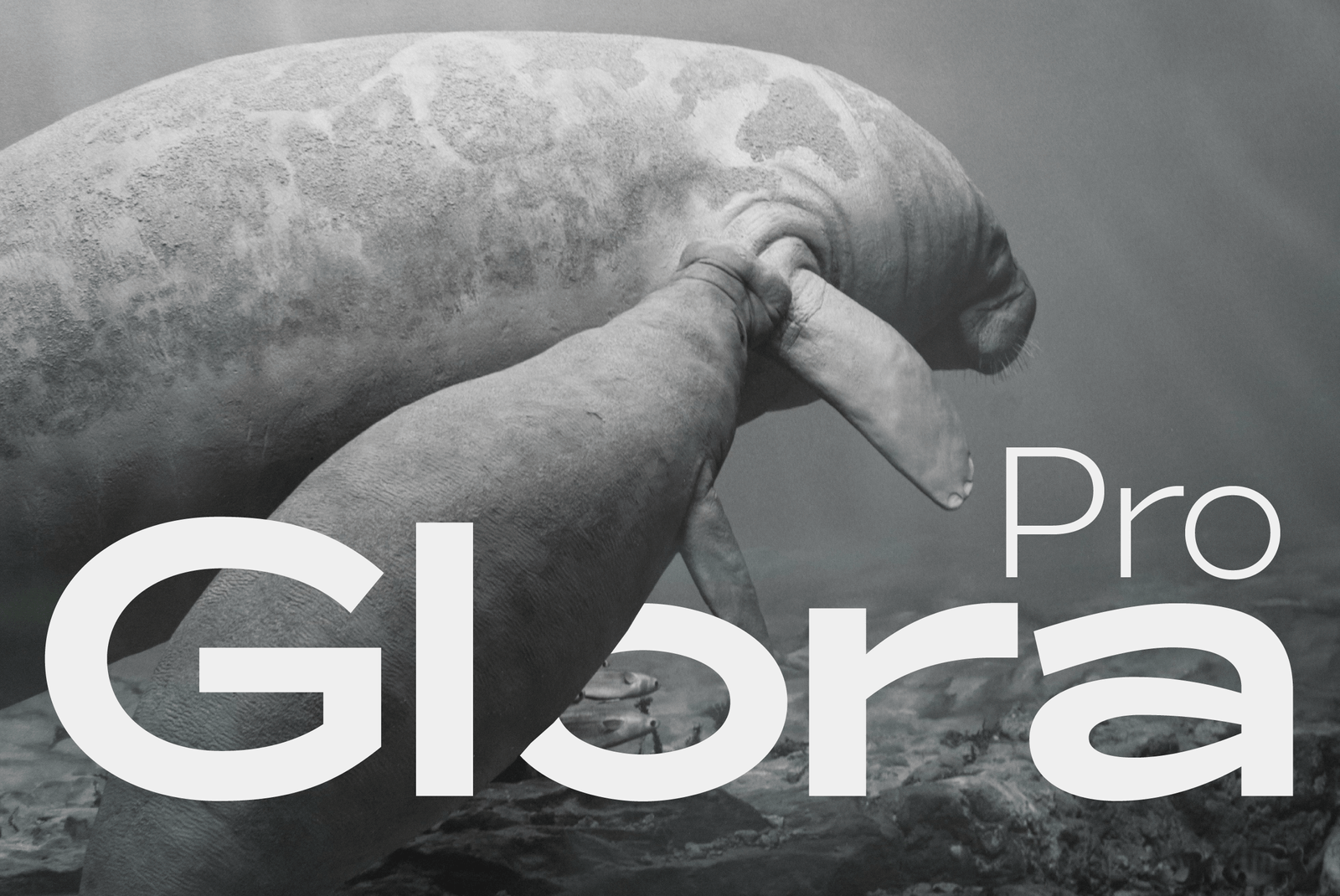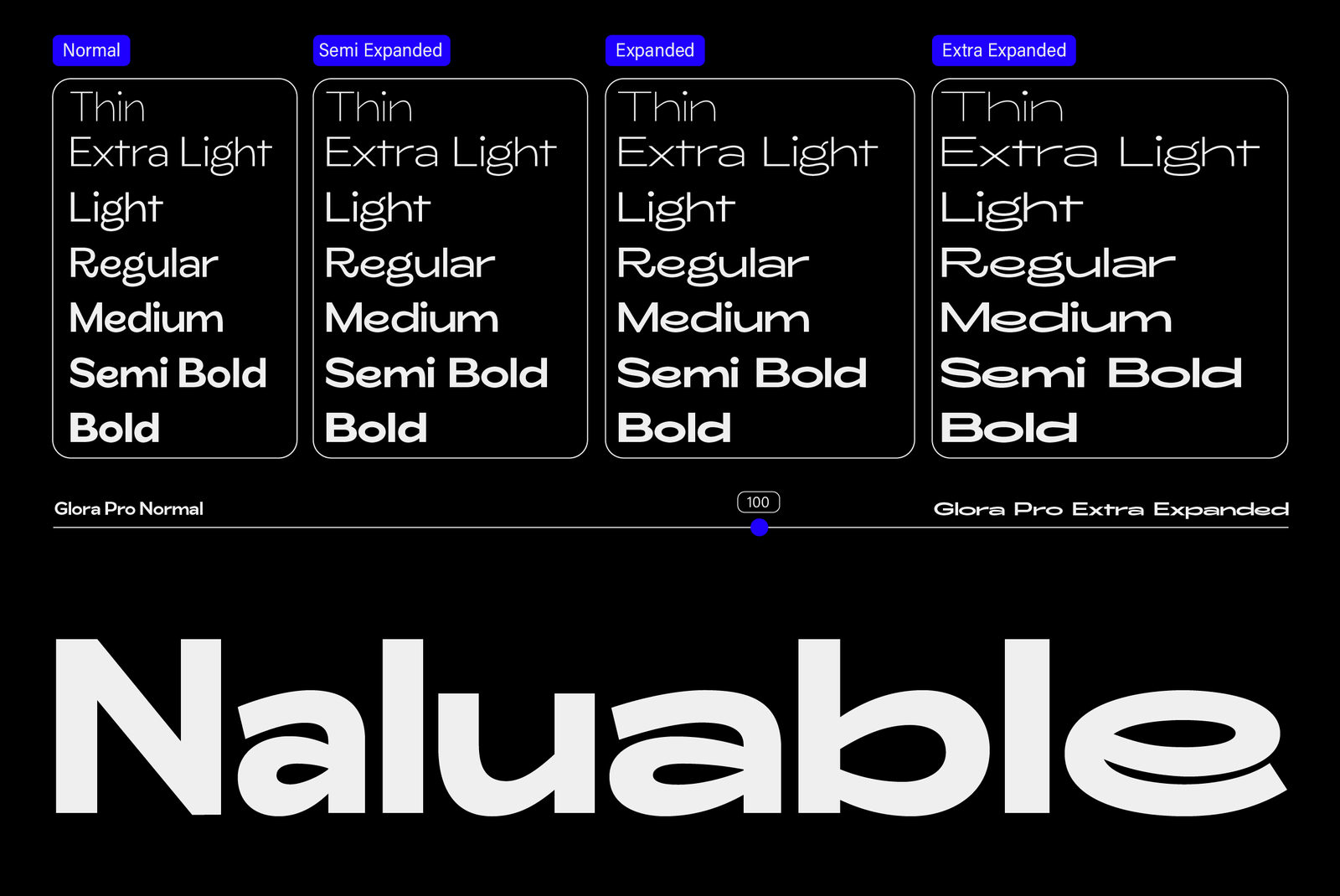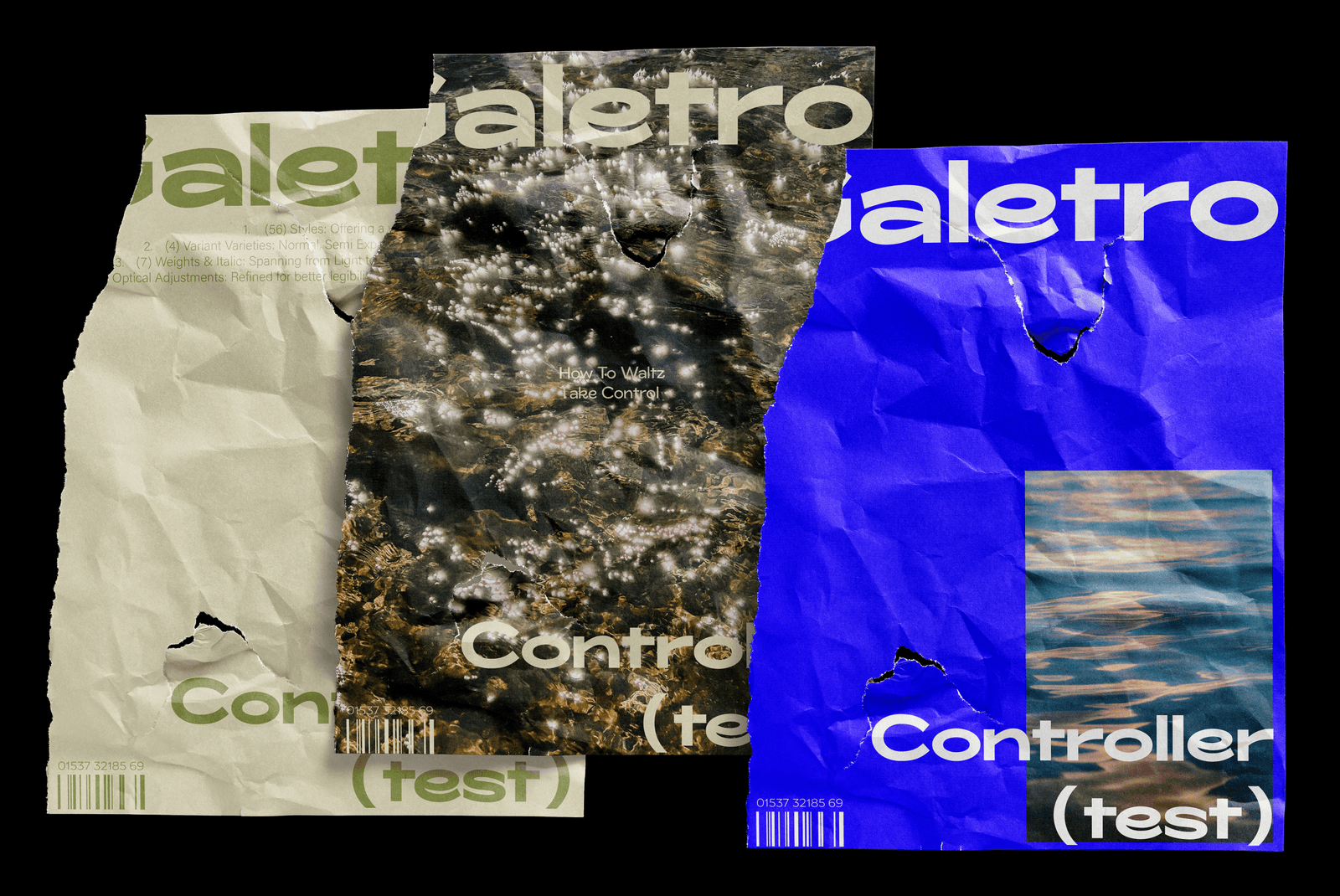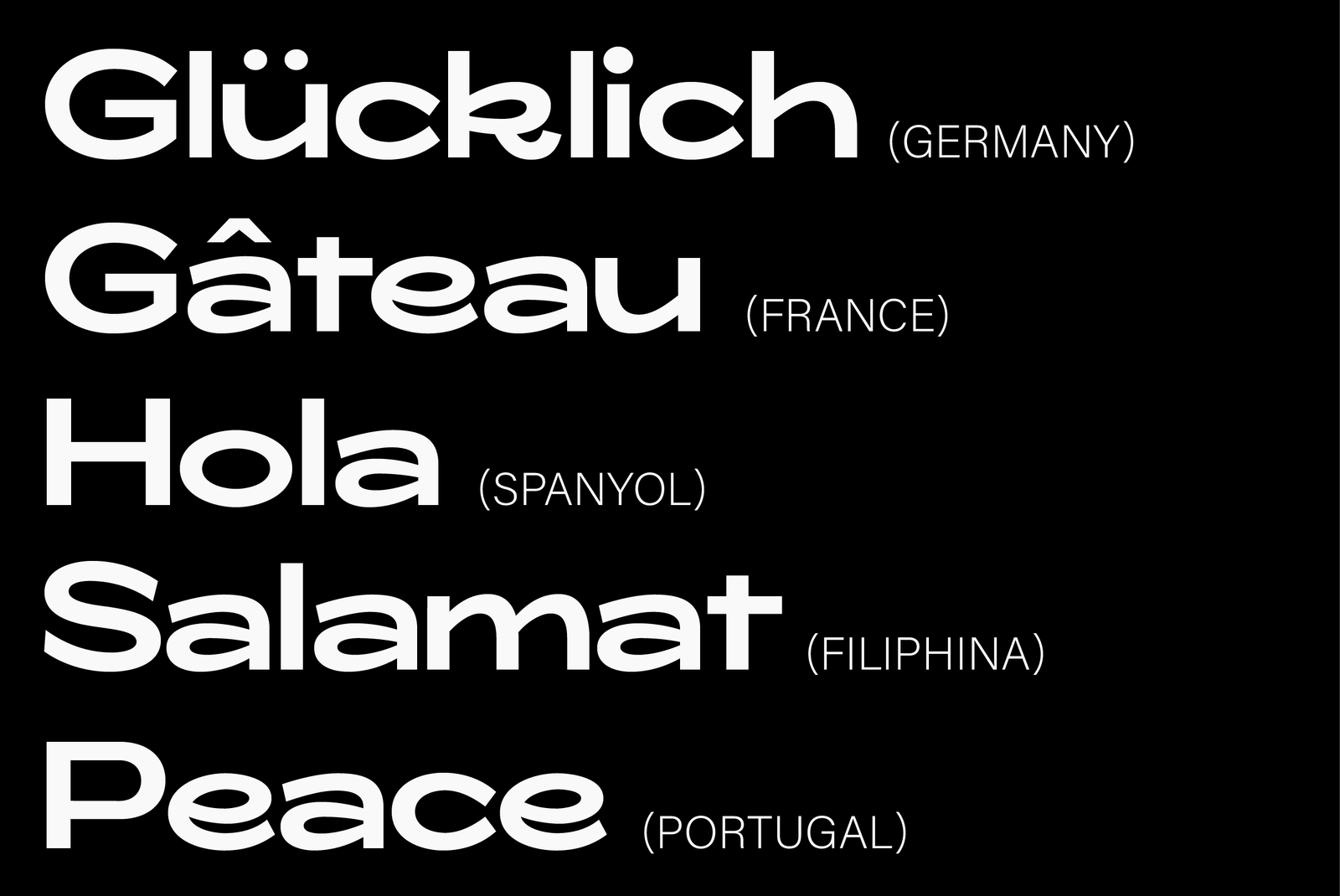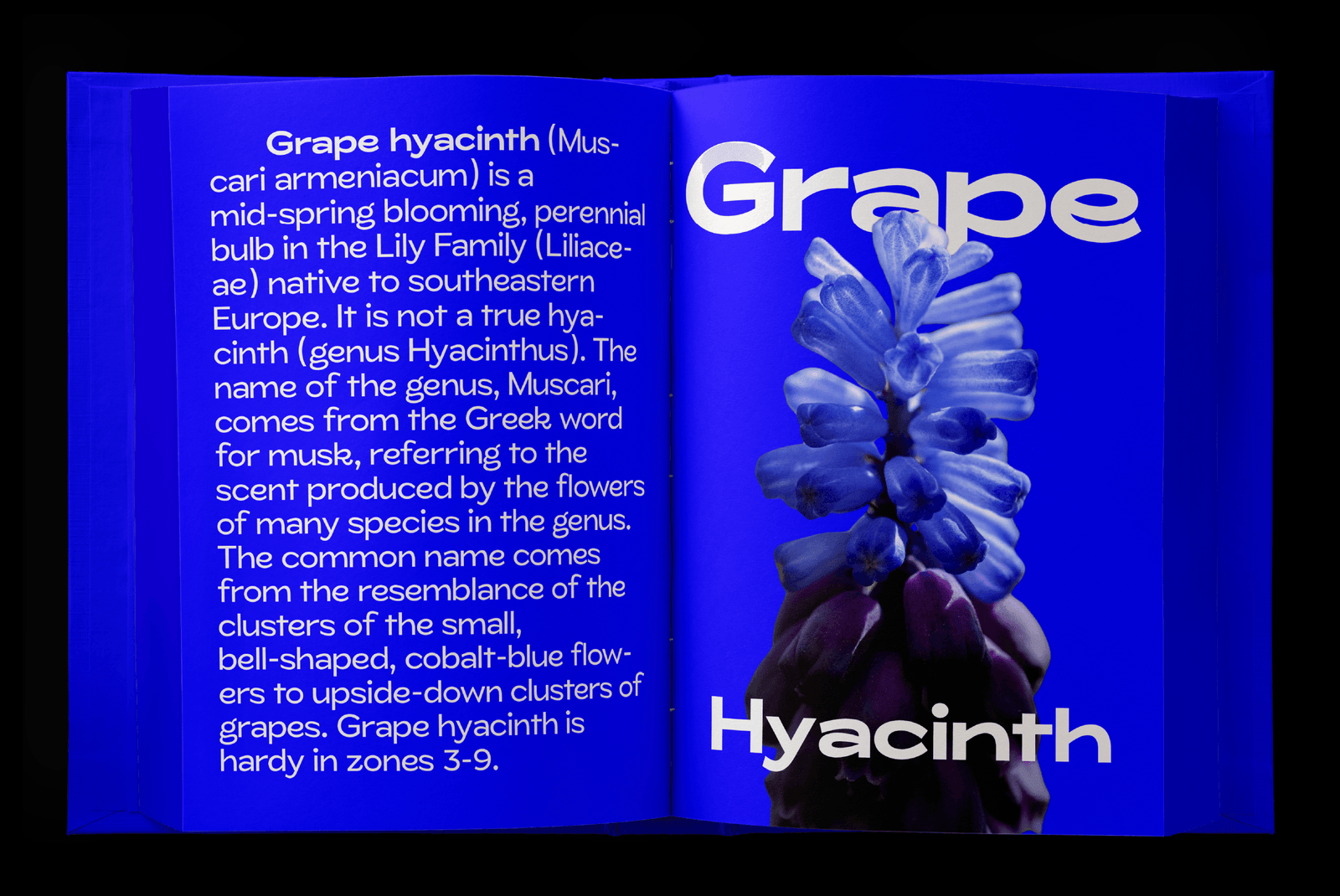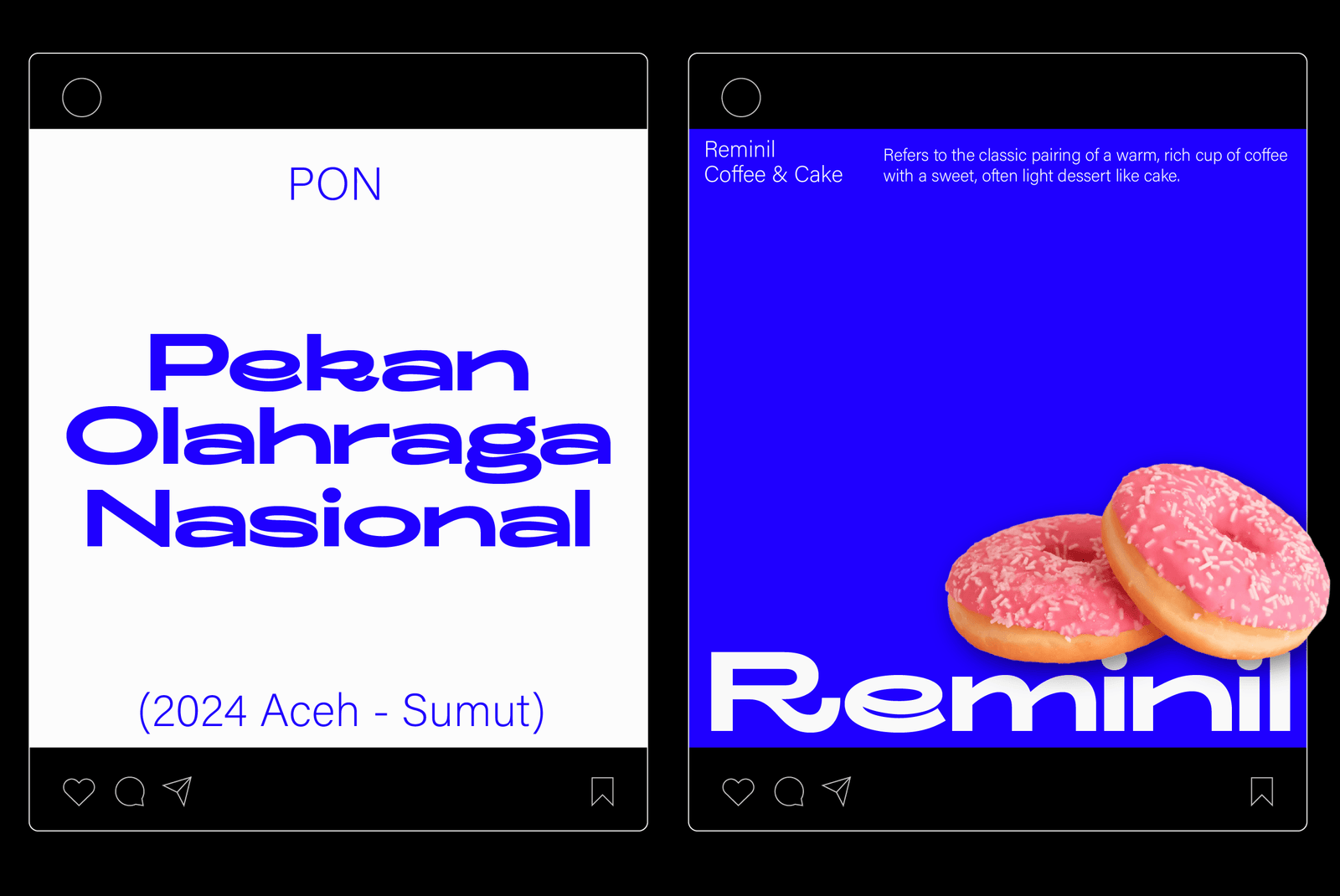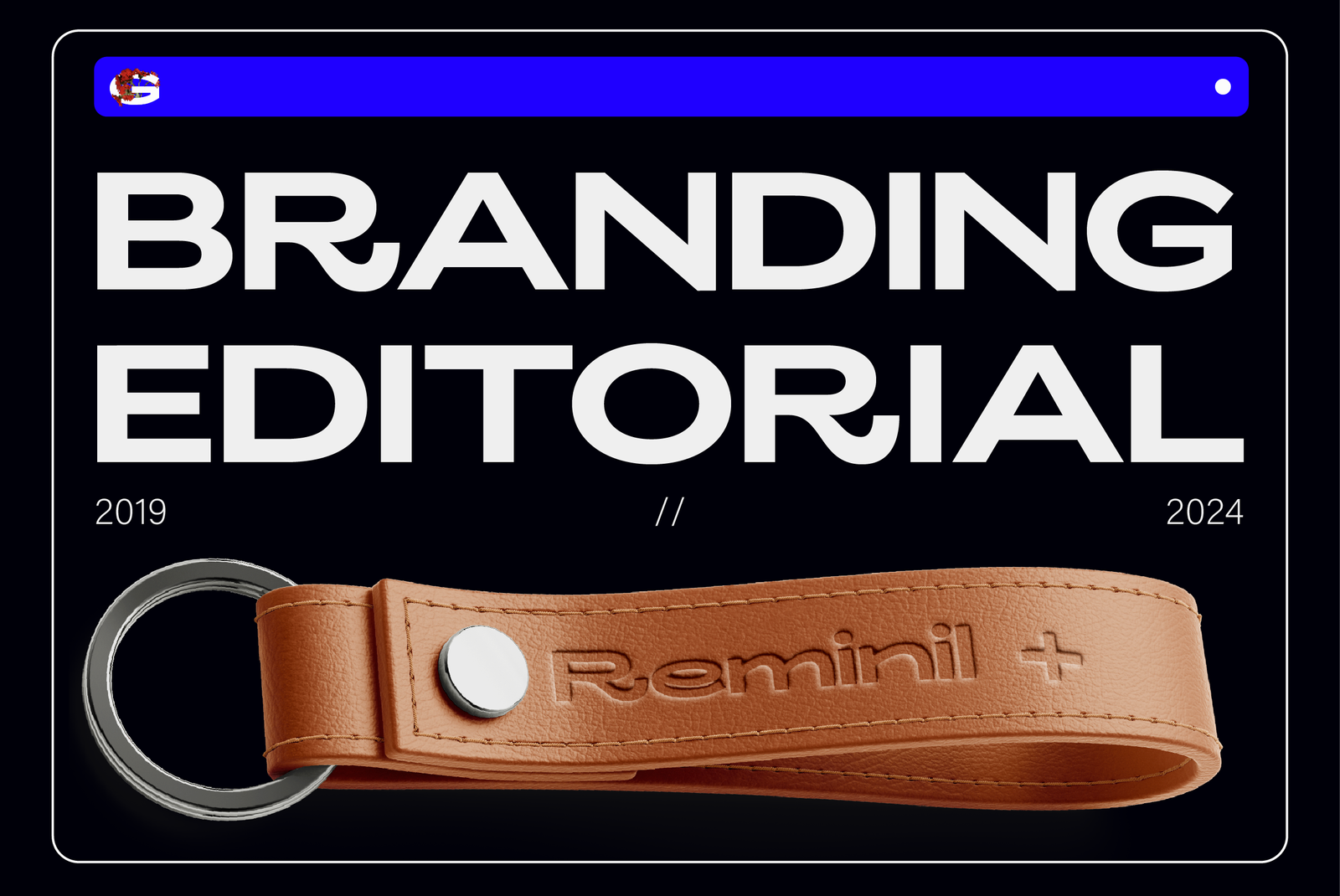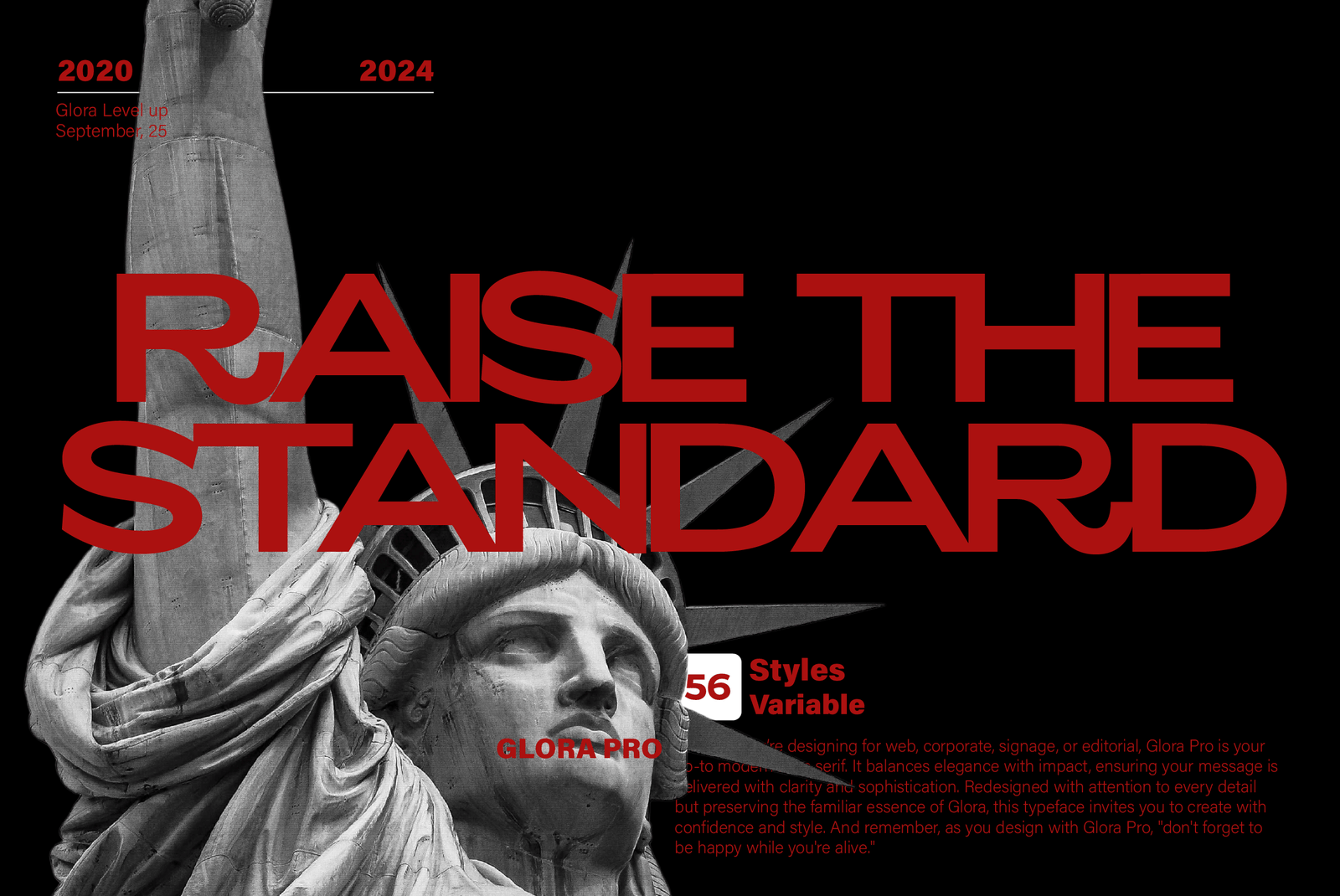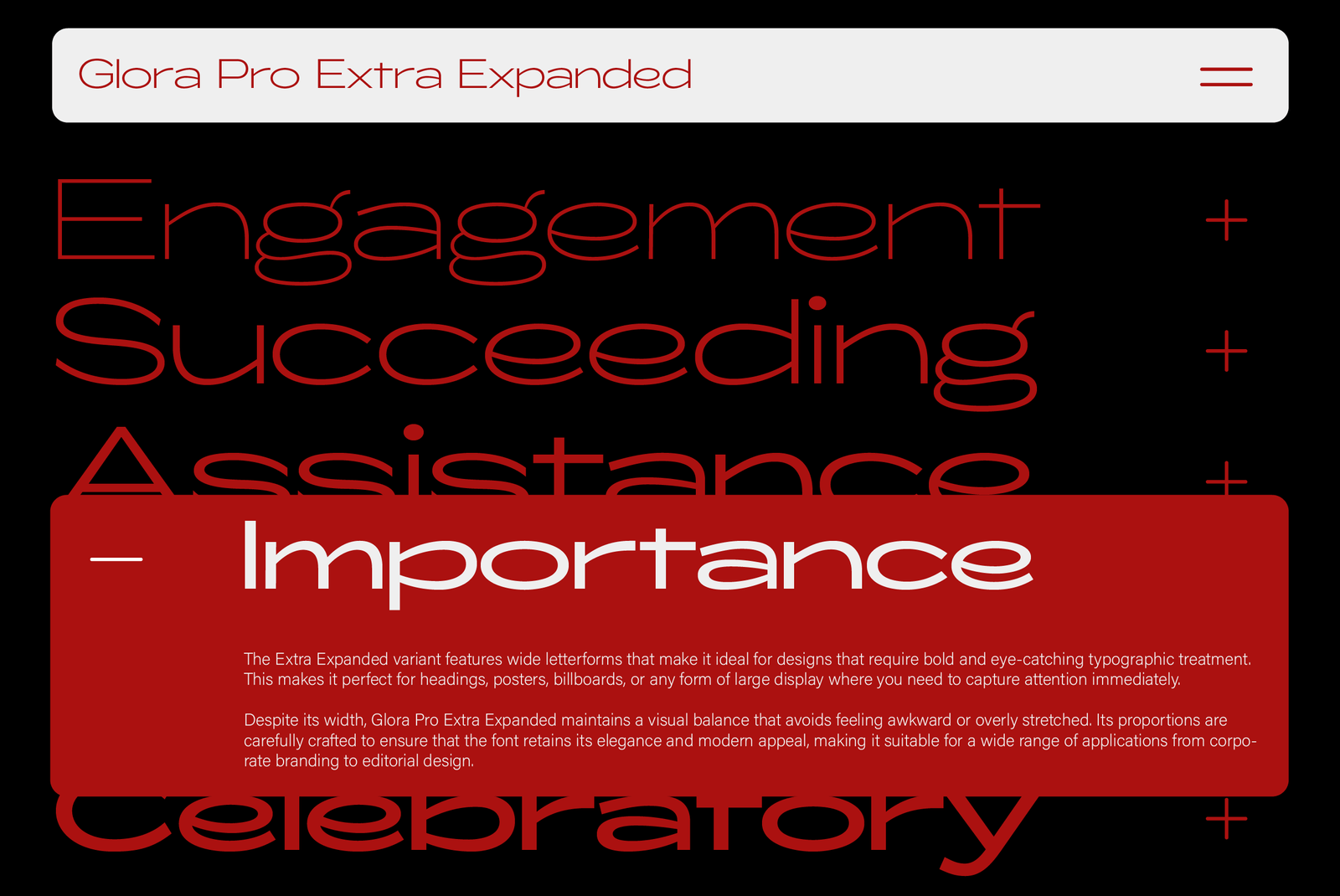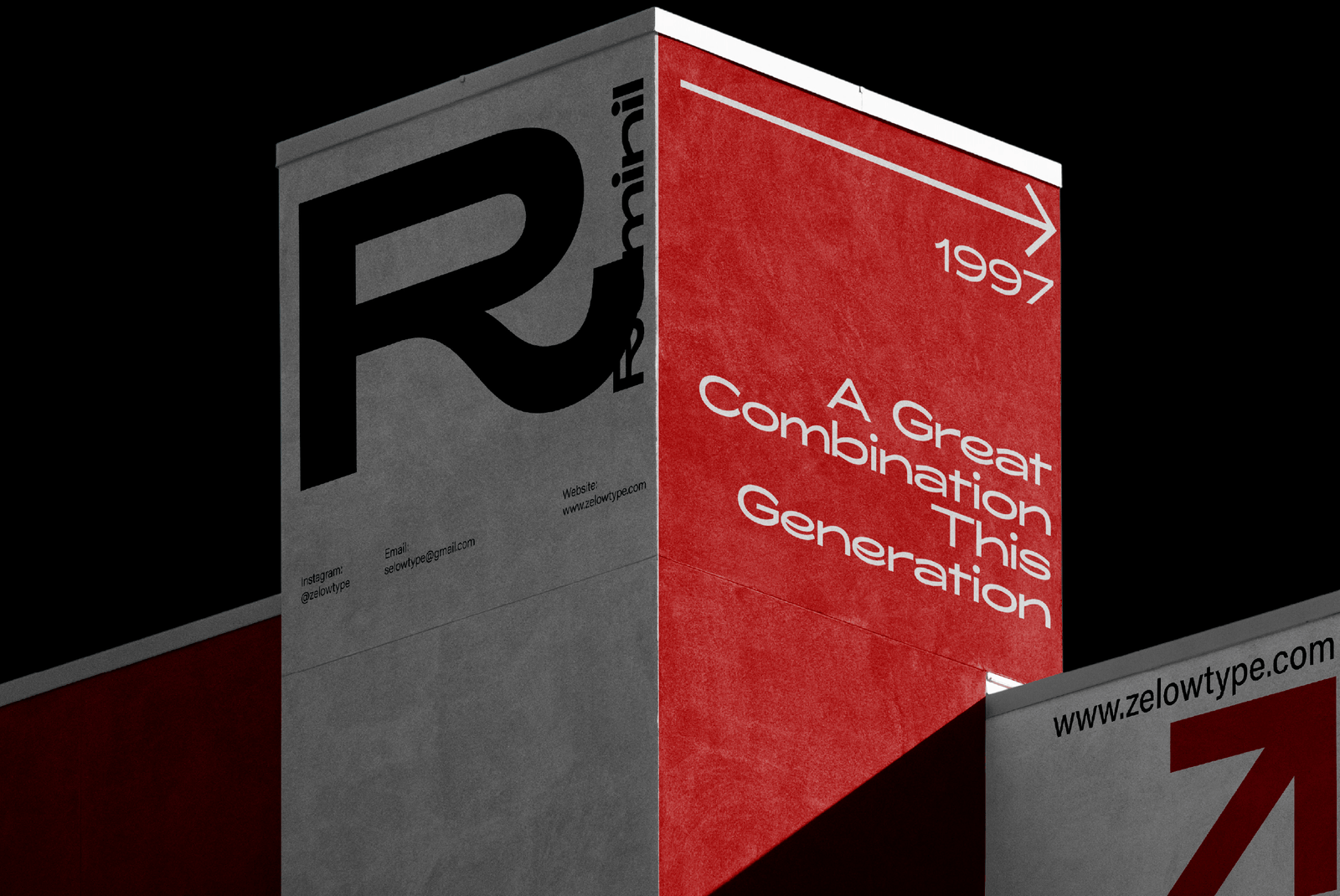
ZT Glora Pro
Glora Pro is the next chapter in the Glora story, meticulously crafted to bring an elevated experience to your design projects. Originally released in 2020, Glora has now been fully reimagined, expanding from 6 to 56 styles with precise improvements in kerning, weight stability, and overall refinement. With the addition of new variants—Normal, Semi Expanded, and Extra Expanded, each complete with their own italic styles—Glora Pro maintains the signature soft touch and strong letterforms that made the original beloved, while offering greater versatility and depth.
Key Features:
• 56 Styles: Offering a wide array of design possibilities.
• 4 Variant Varieties: Normal, Semi Expanded, Extra Expanded.
• 7 Weights & Italic: Spanning from Light to Bold, providing flexibility in design.
• Multi-Language Support: Perfect for global projects with extensive language coverage.
• Enhanced Kerning: Improved spacing for consistent and polished text appearance.
• Optical Adjustments: Refined for better legibility and visual balance across all sizes.
Whether you’re designing for web, corporate, signage, or editorial, Glora Pro is your go-to modern sans serif. It balances elegance with impact, ensuring your message is delivered with clarity and sophistication. Redesigned with attention to every detail but preserving the familiar essence of Glora, this typeface invites you to create with confidence and style. And remember, as you design with Glora Pro, “don’t forget to be happy while you’re alive.”
ZT Glora Pro is a geometric sans reimagined for today’s designers. With refined proportions and expanded widths, it balances clarity with character. Perfect for both striking headlines and clean editorial layouts, it delivers precision in every style. Modern yet approachable, ZT Glora Pro is built to adapt across identities, interfaces, and print. Its structure is versatile enough for bold statements while maintaining elegance in subtle contexts. A type family that embodies consistency with freedom.